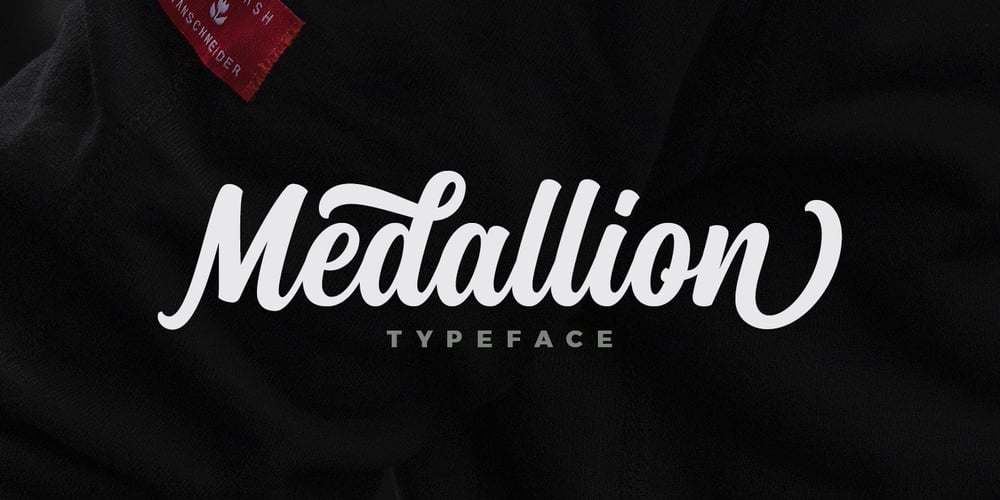
Medallion Font Family was designed by published by Unicode Studio. Medallion contains 1 styles and family package options. Medallion is a new and fresh font script that comes with a vintage and neat style. so this font can be used easily, even in mix and match with other fonts. so it can provide new alternatives and sensations for designers or craftsmen, in working on various projects. This font is perfect for all your project like the wedding invitation, greeting cards, branding materials, business cards, quotes, posters, insignia, badge, greeting cards, vintage logo, or you can use this font for various logo project (logotype) and more! The following characters are ideal to make an attractive message, mix and match Medallion with a bunch of alternative characters to fit your project Medallion comes with 318 glyphs totally. The alternative characters were divided into several Open Type features such as Swash, Stylistic Sets, Stylistic Alternates, Contextual Alternates, and Ligature. The Open Type features can be accessed by using Open Type savvy programs such as Adobe Illustrator, Adobe InDesign, Adobe Photoshop Corel Draw X version, And Microsoft Word. And this Font has given PUA Unicode (specially coded fonts). so that all the alternate characters can easily be fully accessed by a craftsman or designer through either Windows or Mac computer without any requirement for fancy design software. Mail support: If you have any question, please contact me Via e-mail “unicodestudio@gmail.com” Thank You!